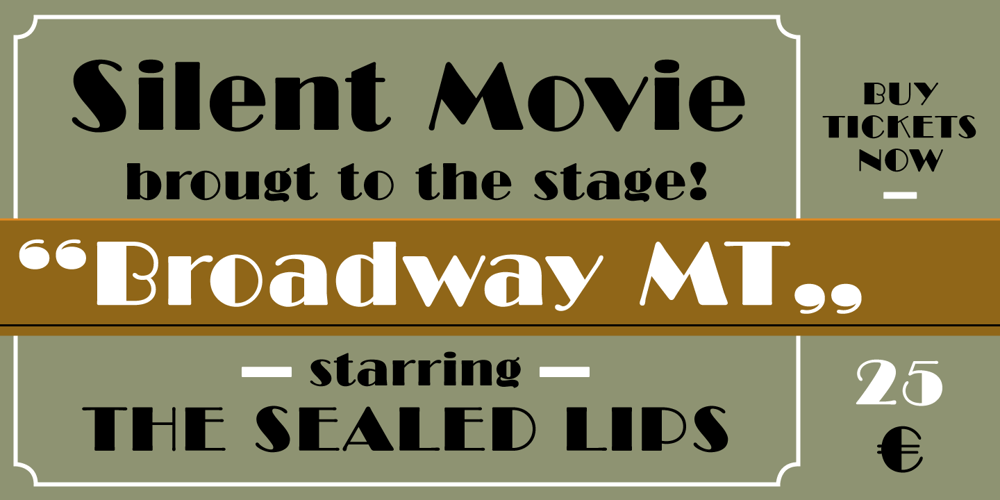
TC Broadway
TC Broadway font
TC Broadway Font Family was designed by Morris Fuller Benton and published by Monotype. TC Broadway contains 1 styles and family package options. Modeled after a 1928-1928 design by M.F. Benton — Broadway –, TC Broadway is ideal for show posters and signs for restaurants and boutiques. The TC Broadway font has strong contrasting strokes, and as such is only suitable for short lines.